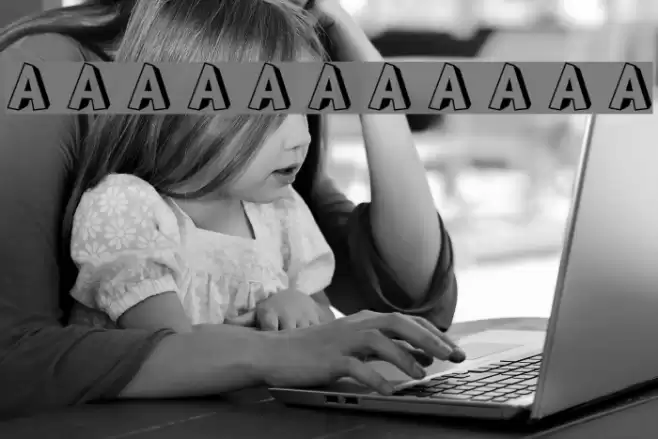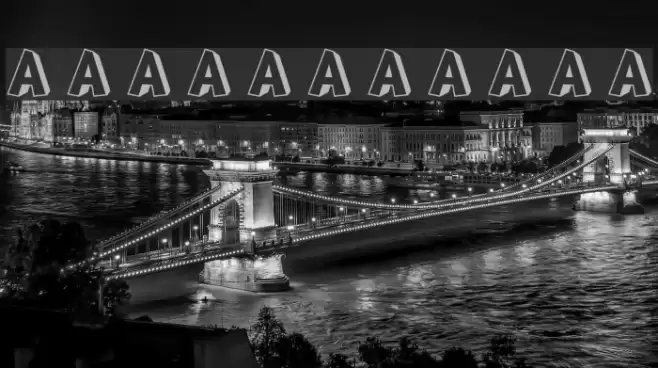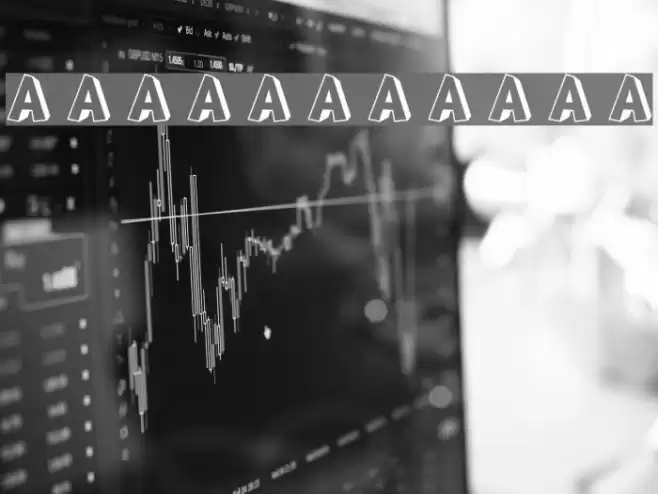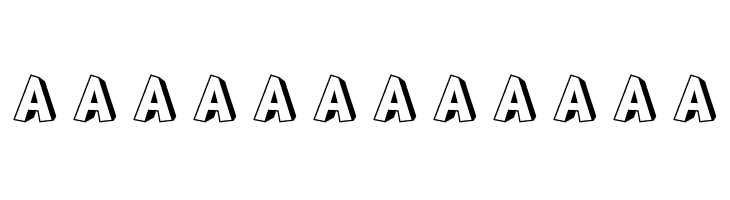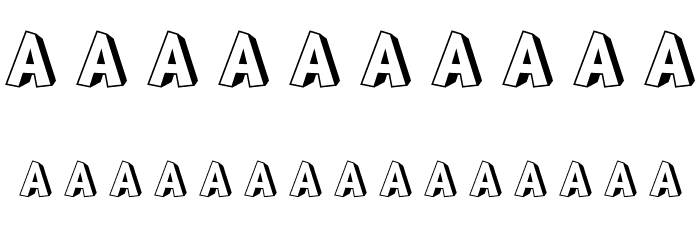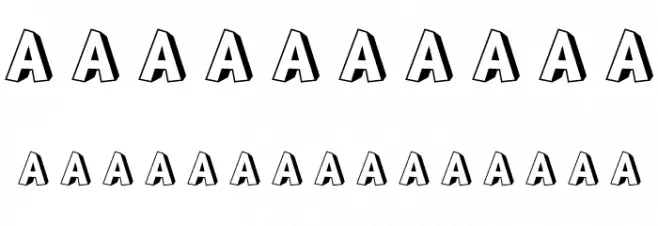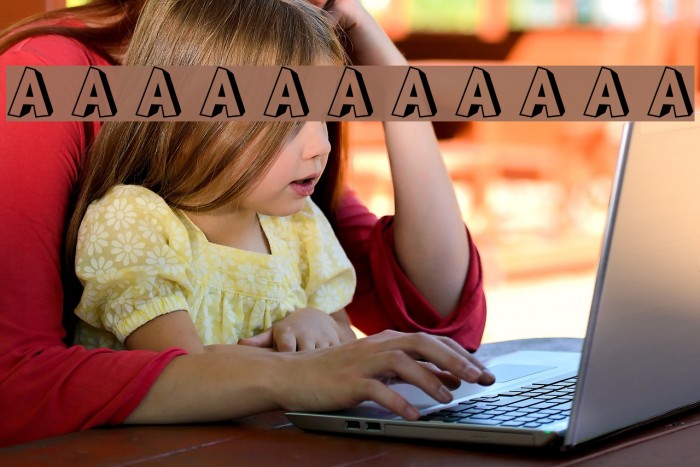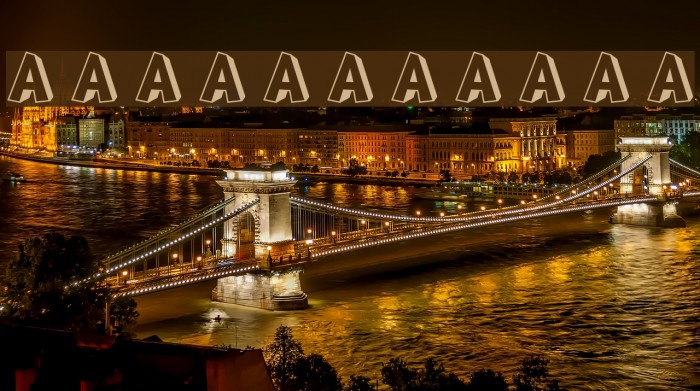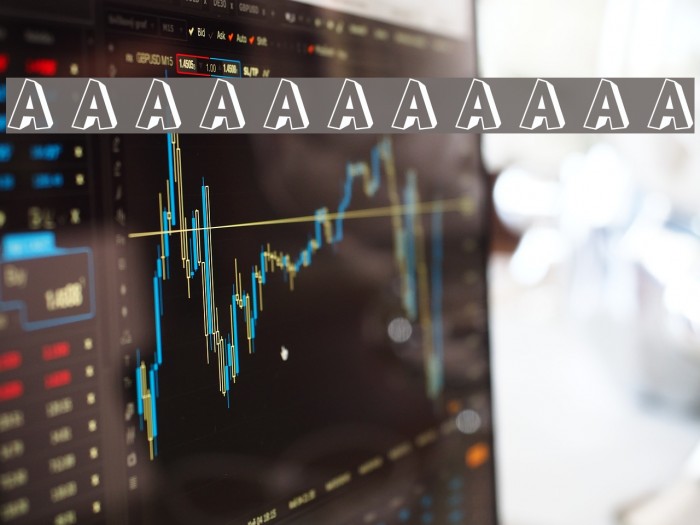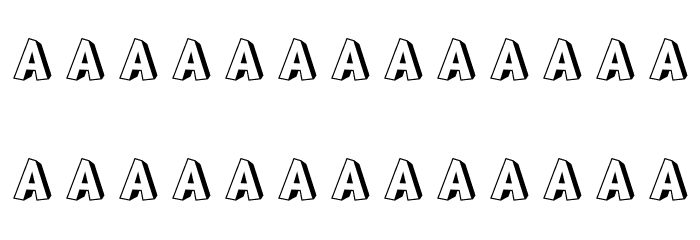
BATAVIA-KOTA
This font features a bold and dynamic design with a three-dimensional effect. Each letter is characterized by a strong, solid structure with a shadow that gives it depth and a sense of movement. The style is eye-catching and impactful, making it suitable for attention-grabbing headlines or logos. The letters are uniformly spaced, maintaining a consistent and balanced appearance across all characters. The overall aesthetic is modern and playful, with a touch of retro influence due to the shadow effect.
A bold, 3D-effect font with a modern and playful style.
- Proposed Projects: Ideal for use in branding, advertising, posters, and any project requiring a striking visual impact.